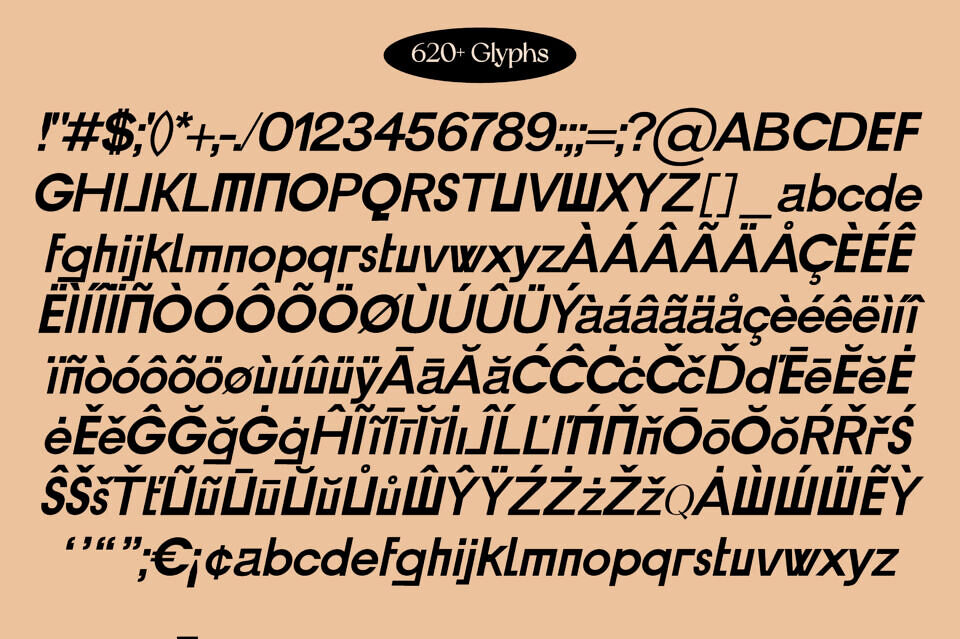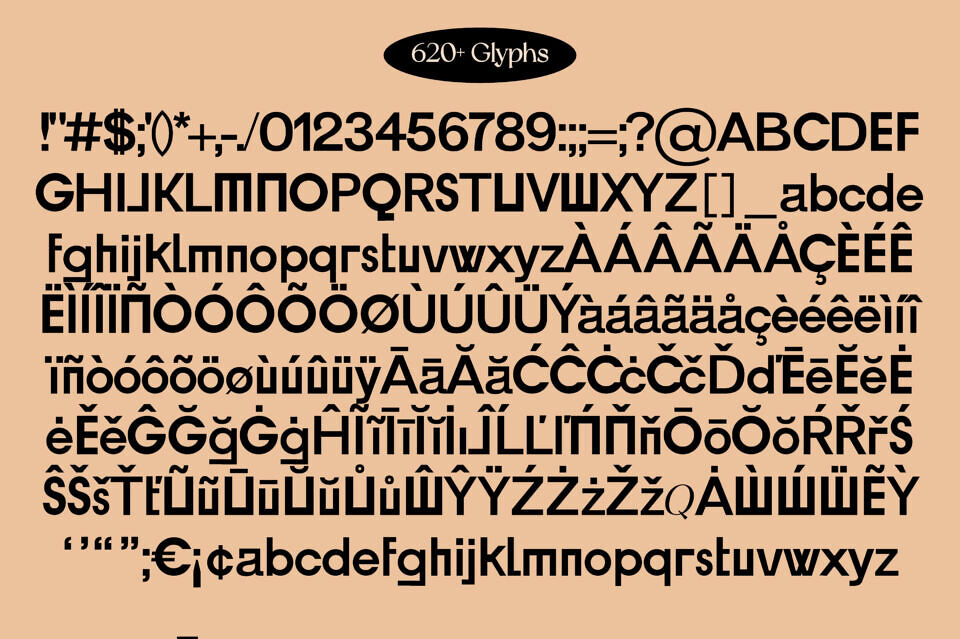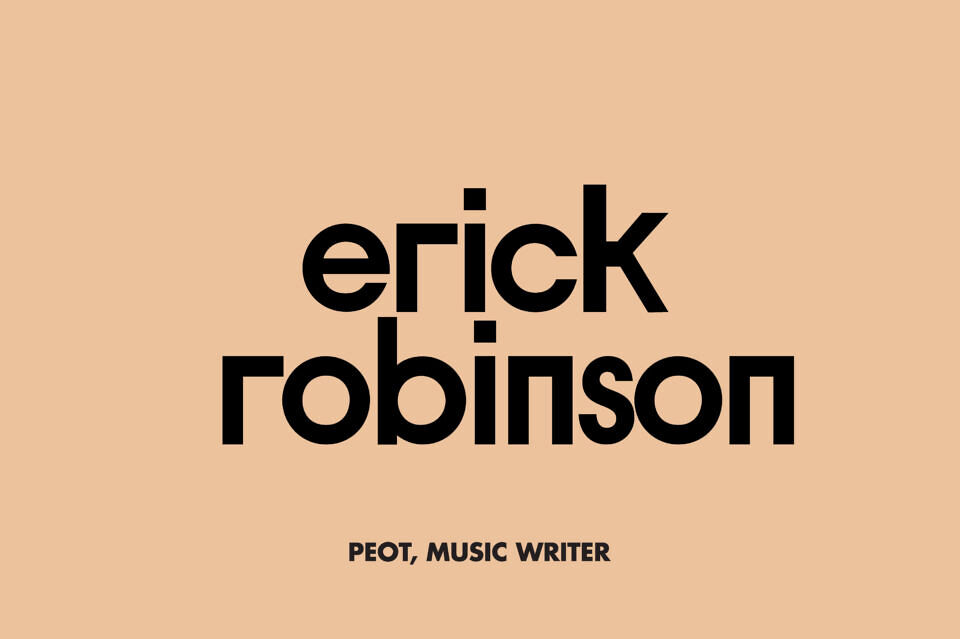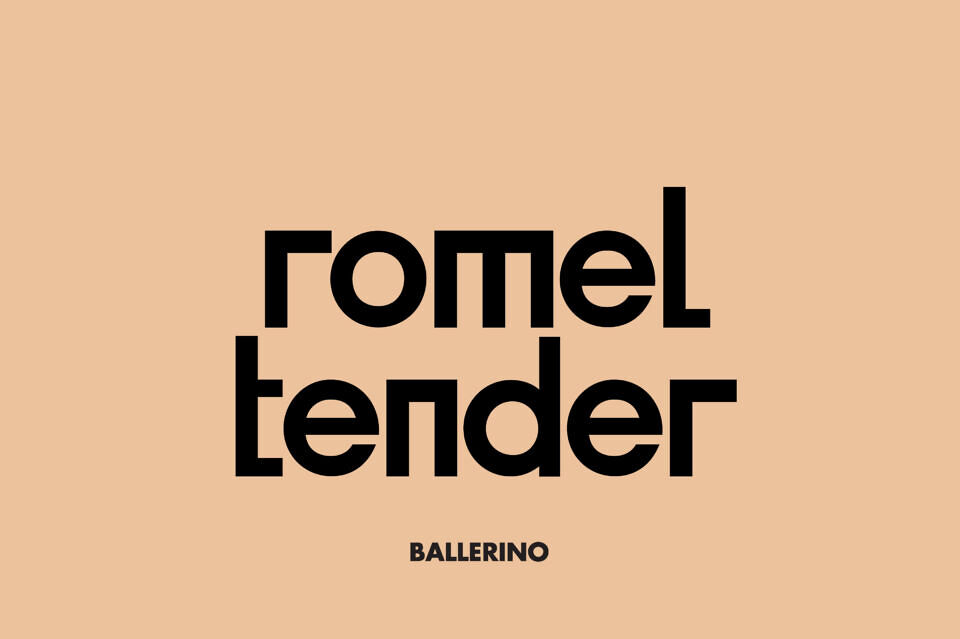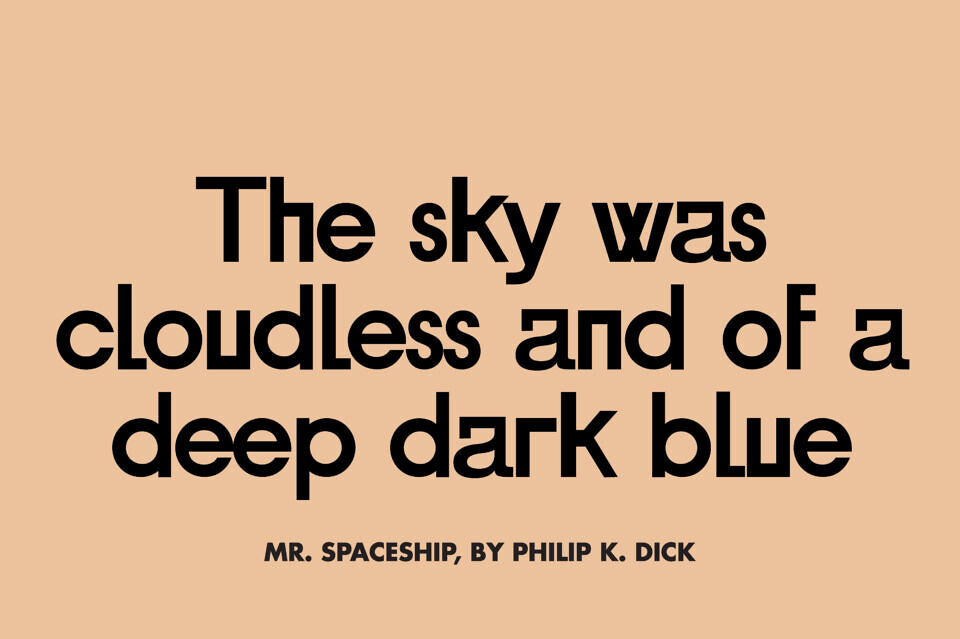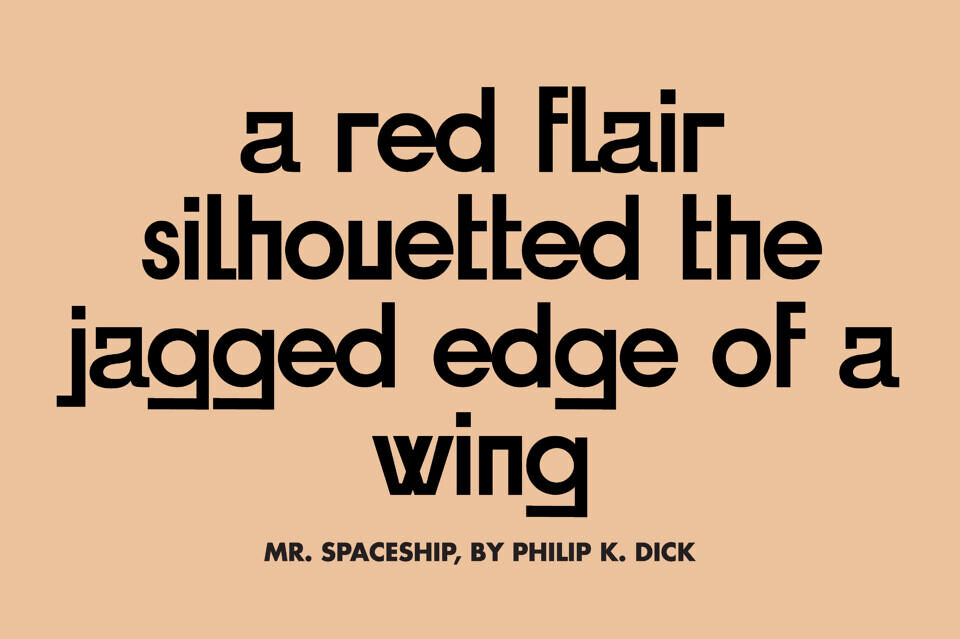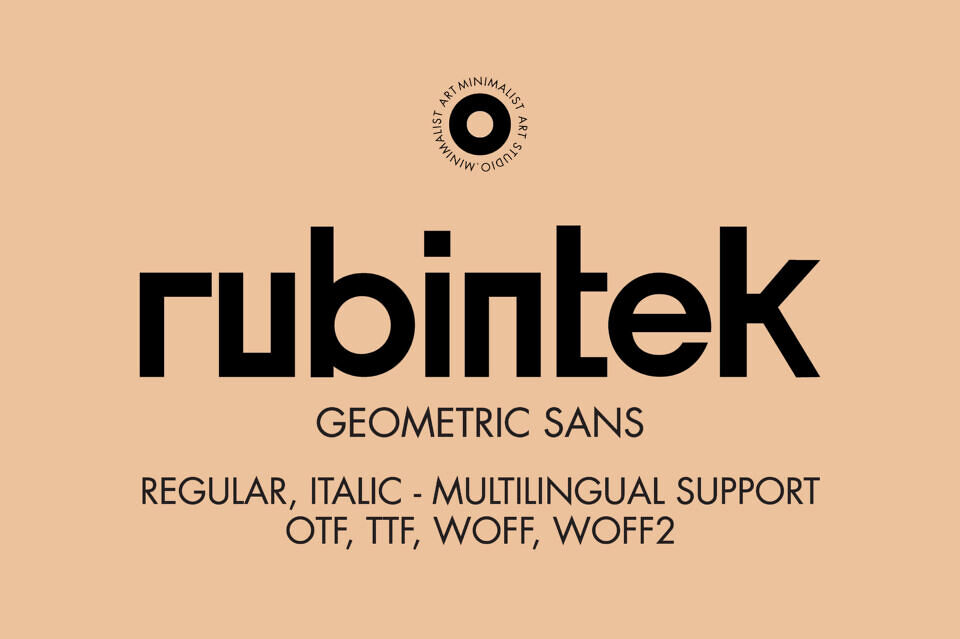
Rubintek Font
Experience the power of simplicity with Rubintek, a minimalist geometric sans serif typeface. Its clean lines and precise angles create a timeless appeal, combining modern aesthetics with a touch of elegance.
Versatile and legible, Rubintek is perfect for websites, branding, and print designs. Customize weights and styles to make a bold statement.